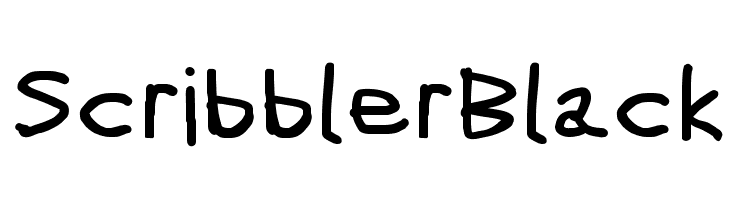
A sketchy, hand-drawn font with a dynamic and energetic feel.
A playful and casual handwritten font with rounded, dynamic strokes.
A playful, casual handwritten font with a natural, organic flow.
A bold, playful handwritten font with a casual and friendly style.
A bold, handwritten font with a playful and casual style.
A playful, hand-drawn font with a whimsical and dynamic style.
A playful, bold handwritten font with rounded letterforms.
A bold, hand-painted style font with textured, expressive characters.
A bold, hand-drawn font with a playful and informal style.